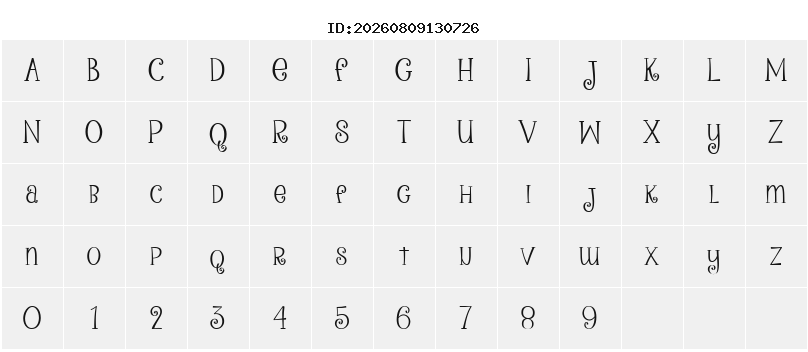
Peanutbutter Smoothies Preview
About Peanutbutter Smoothies.ttf
Peanutbutter Smoothies.ttf is a modern, elegant sans-serif font designed for ultimate readability and visual harmony. Perfect for branding, headlines, web design, and print materials.